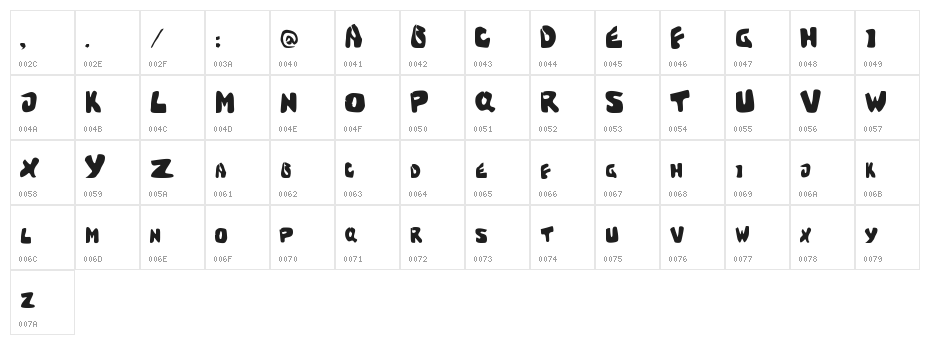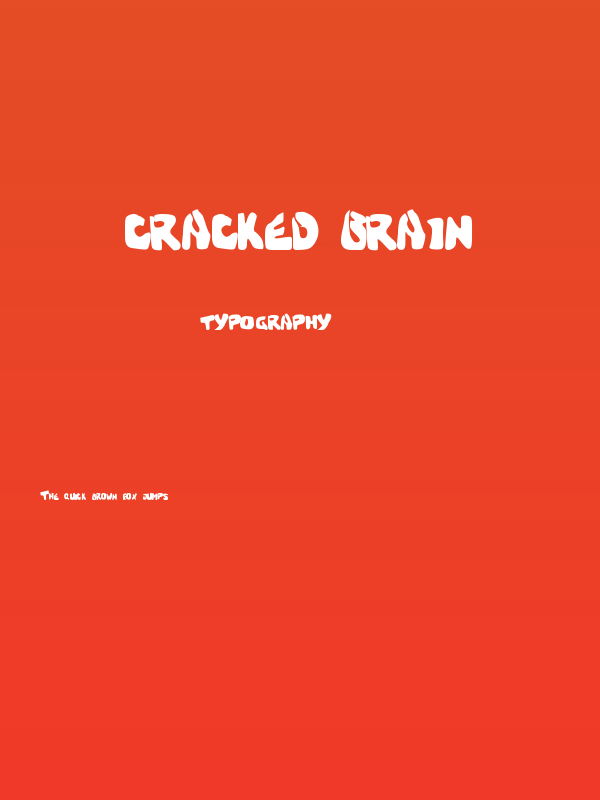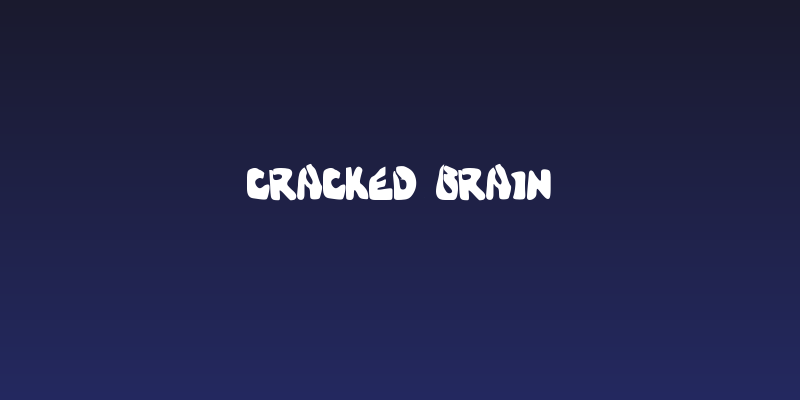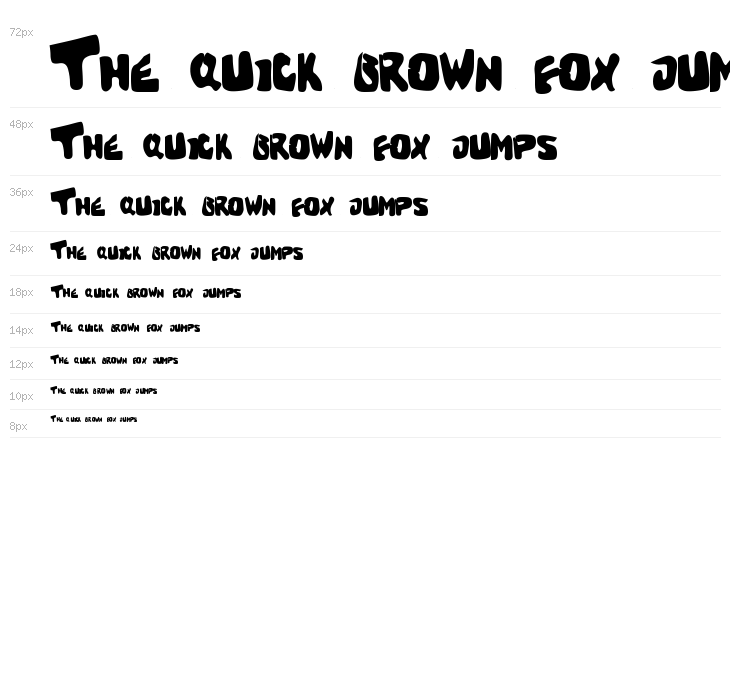
Cracked Brain Font
Cracked Brain Description
This font features a bold and playful design with a distinctly irregular and organic shape. Each character appears as if it has been hand-drawn, with uneven edges and a slightly distorted form that gives it a unique, quirky personality. The letters are thick and substantial, making them highly visible and impactful. The style is reminiscent of graffiti or street art, with a casual and informal vibe. The font's overall appearance is dynamic and energetic, making it suitable for creative and unconventional projects. Its boldness ensures that it stands out, while the irregularities add a touch of whimsy and creativity.
| Proposed Projects | Ideal for posters, album covers, street art designs, and creative branding projects. |